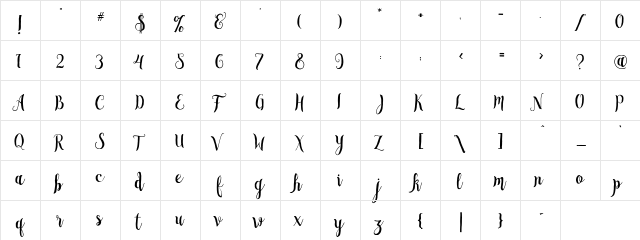
Swistblnk Neaments Regular
| Foundry | Swistblnk |
| Designer | Agga Swistblnk |
Design Context for Swistblnk Neaments Typeface
Swistblnk Neaments is a composed and adaptable typeface that performs quietly and consistently across a wide range of design contexts.